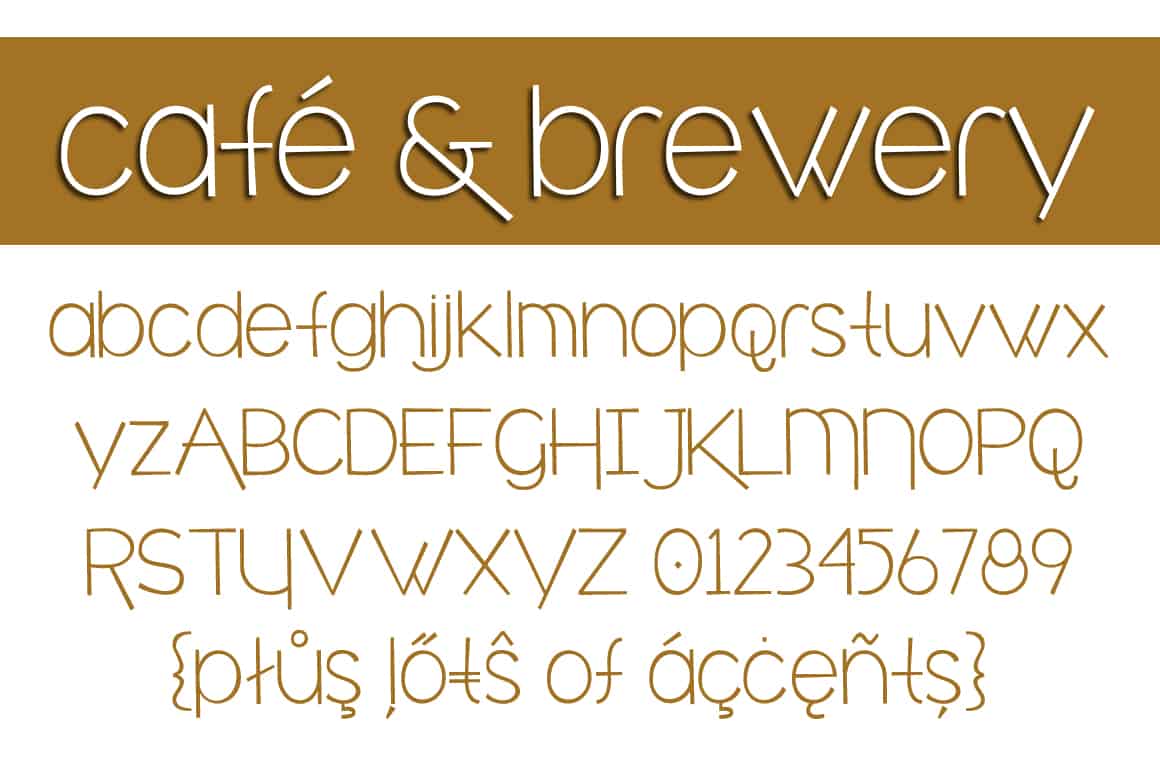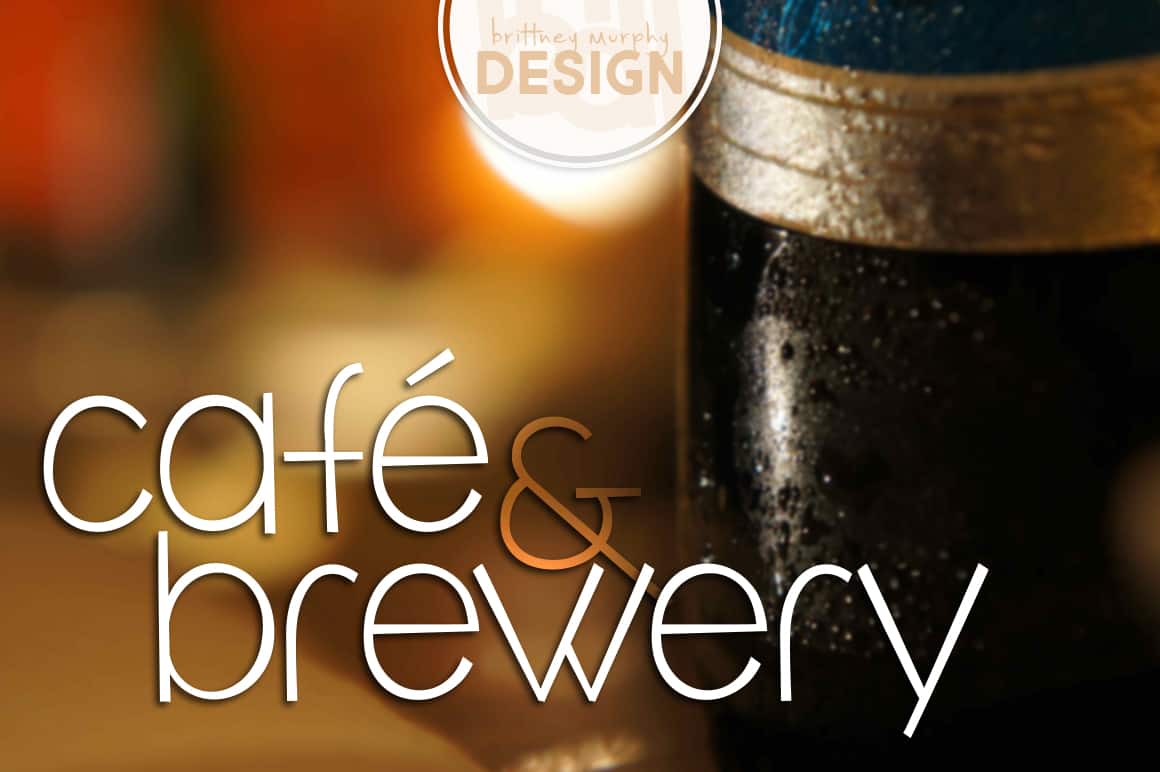
Cafe And Brewery
Café & Brewery Font
Café & Brewery Letters
About the Cafe and Brewery Font
Café & Brewery is a unique sans-serif with a modern feel. Drawn by hand and then clean up to give an organic but clean feeling, this font works well on products you are trying to give a professional feel with a soft edge to it.